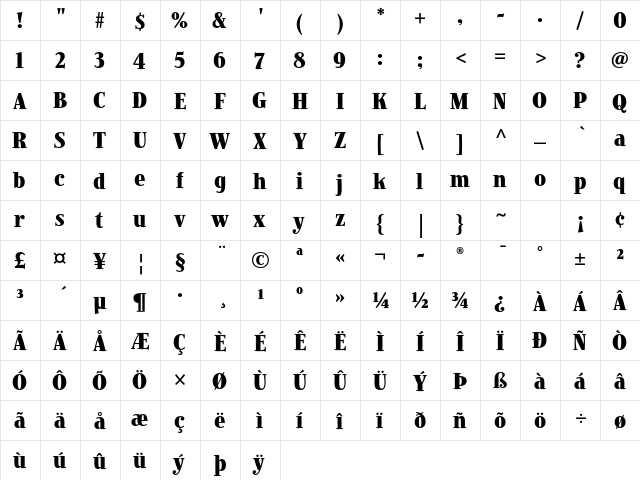
Jimbo Std Bold Condensed Font Preview
| Designer | Jim Parkinson |
Design Context for Jimbo Std Typeface
Jimbo Std offers clean, dependable letterforms without strong stylistic allegiance, making it a practical choice for designers who need flexibility. The heavy weight commands attention and anchors typographic hierarchies. The condensed width makes it efficient for tight spaces without sacrificing legibility.